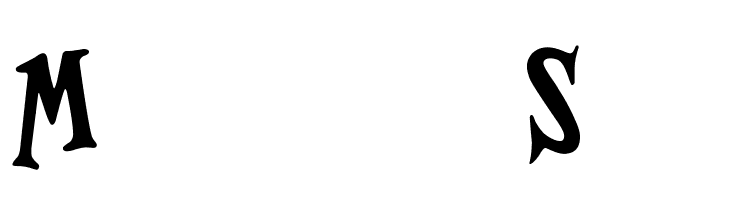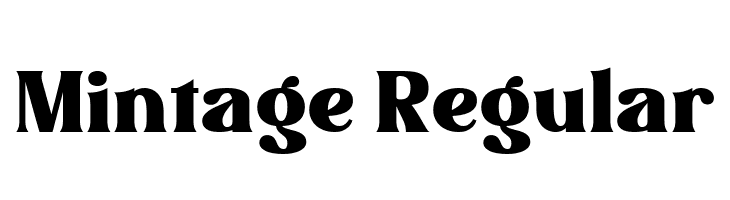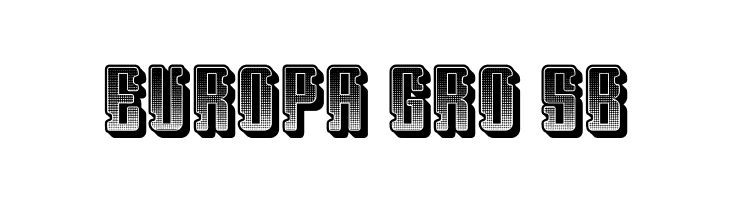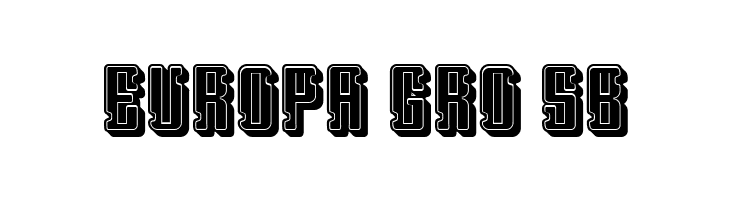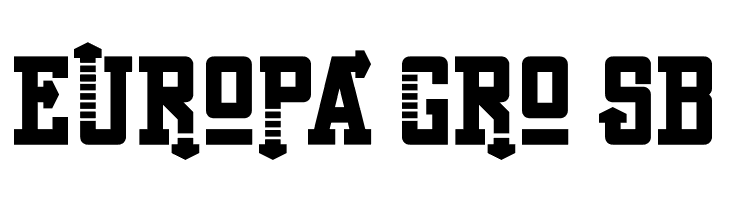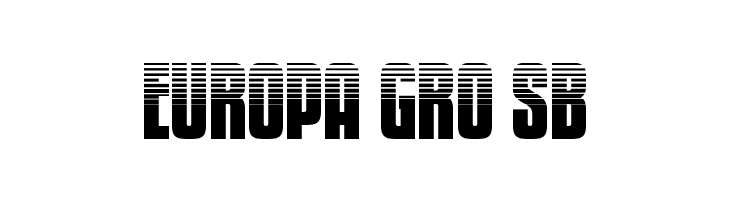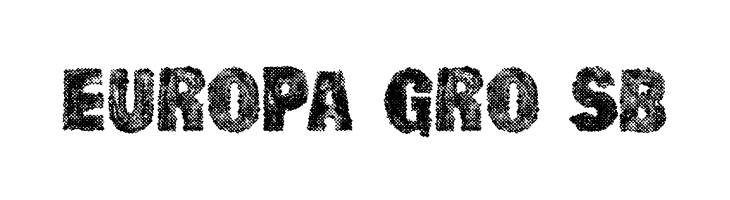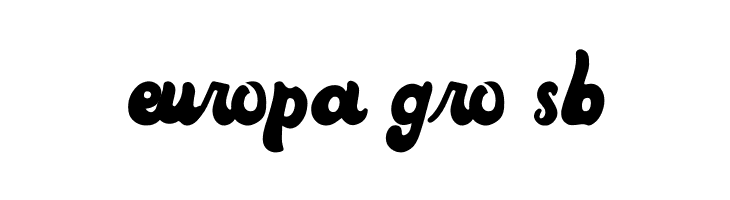
A bold, distressed font with a gritty, textured appearance.
A distressed, textured font with a grunge-like aesthetic, ideal for edgy designs.
A bold, playful script font with rounded strokes and a retro vibe.
A bold, distressed font with an industrial, vintage feel.
A decorative, medieval-style font with ornate uppercase and bold lowercase letters.
A bold, vintage-inspired font with thick strokes and a modern touch.
A bold, ornate Blackletter-style font with high contrast and intricate design.
A bold, vintage collegiate font with strong slab serifs and a classic varsity style.
A bold, vintage serif font with dramatic serifs and modern flair.
A bold, distressed Victorian-style font with a vintage, textured appearance.